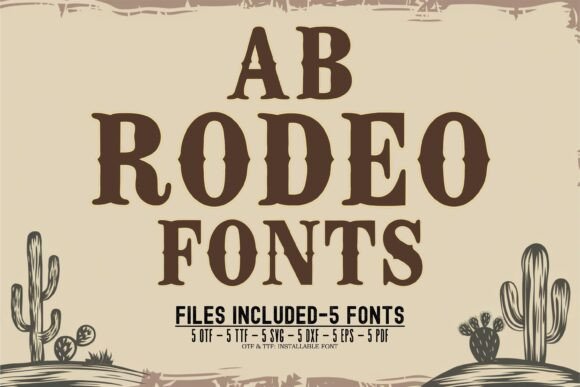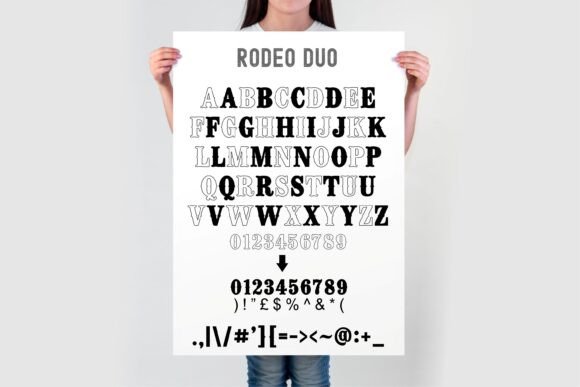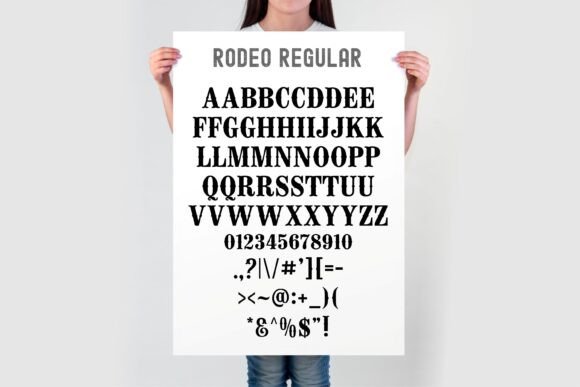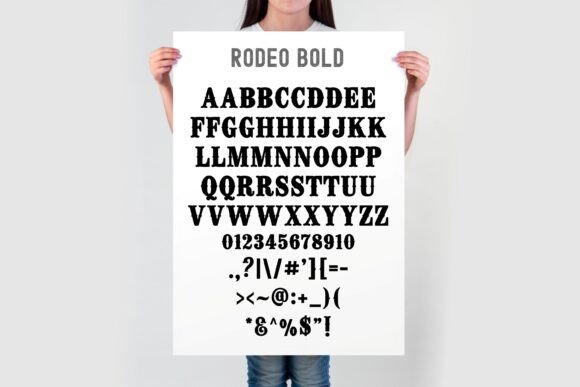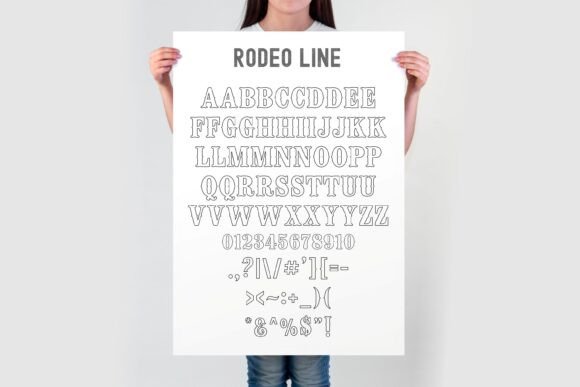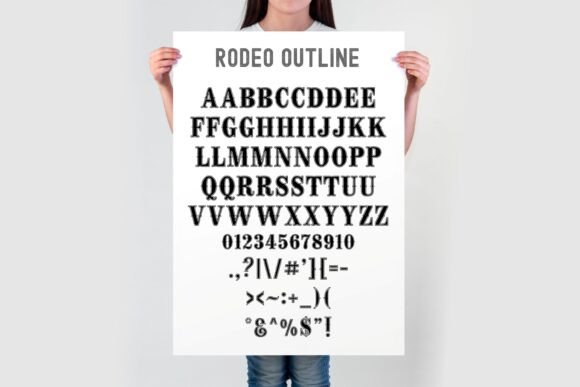
Introduction to Rodeo Bundle Font Font
Fonts play a crucial role in design, and the Rodeo Bundle Font font is a typeface that brings both character and versatility to any project. Whether you’re working on a branding project, a website, or a print design, the Rodeo Bundle Font font offers a unique style that can elevate your work.
Bring the Wild West to life with the βRodeo Western Font Bundleβ.
This versatile bundle features 5 unique styles: Regular, Bold, Line, Outline, and Duo, perfect for adding a rustic, cowboy feel to any project Whether youβre designing logos, t-shirts, signage, or crafting with Cricut and Silhouette machines, this font set provides endless possibilities for creating that timeless Western look.
Key Features of Rodeo Bundle Font Font
Why Choose Rodeo Bundle Font Font?
The Rodeo Bundle Font font is more than just a typeface β it’s a design tool that helps you communicate your message with style and clarity. Its unique character set and versatile design make it suitable for a wide range of applications, from elegant invitations to bold headlines.
With its carefully crafted letterforms and balanced proportions, the Rodeo Bundle Font font ensures readability and visual appeal across all mediums.
What makes Rodeo Bundle Font font special?
The Rodeo Bundle Font font stands out with its unique design, exceptional readability, and versatility across various design applications.